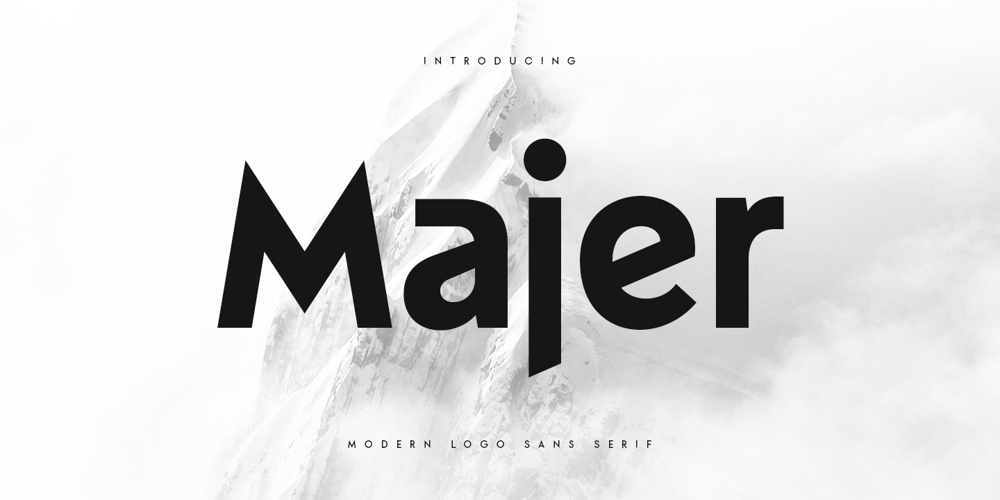
Majer Font Family was designed by Zamroni Hamzah and published by Sensatype Studio. Majer contains 1 styles and family package options. Majer is a sans serif font with modern, luxury, elegant, unique and classy-look. This font crafted specials for logo design projects, ready to use on Logo, Branding, Magazine, Social Media, and Many more that needs modern touches.Majer is also included full set of: uppercase and lowercase letters multilingual characters numerals punctuation Wish you enjoy our font. ๐